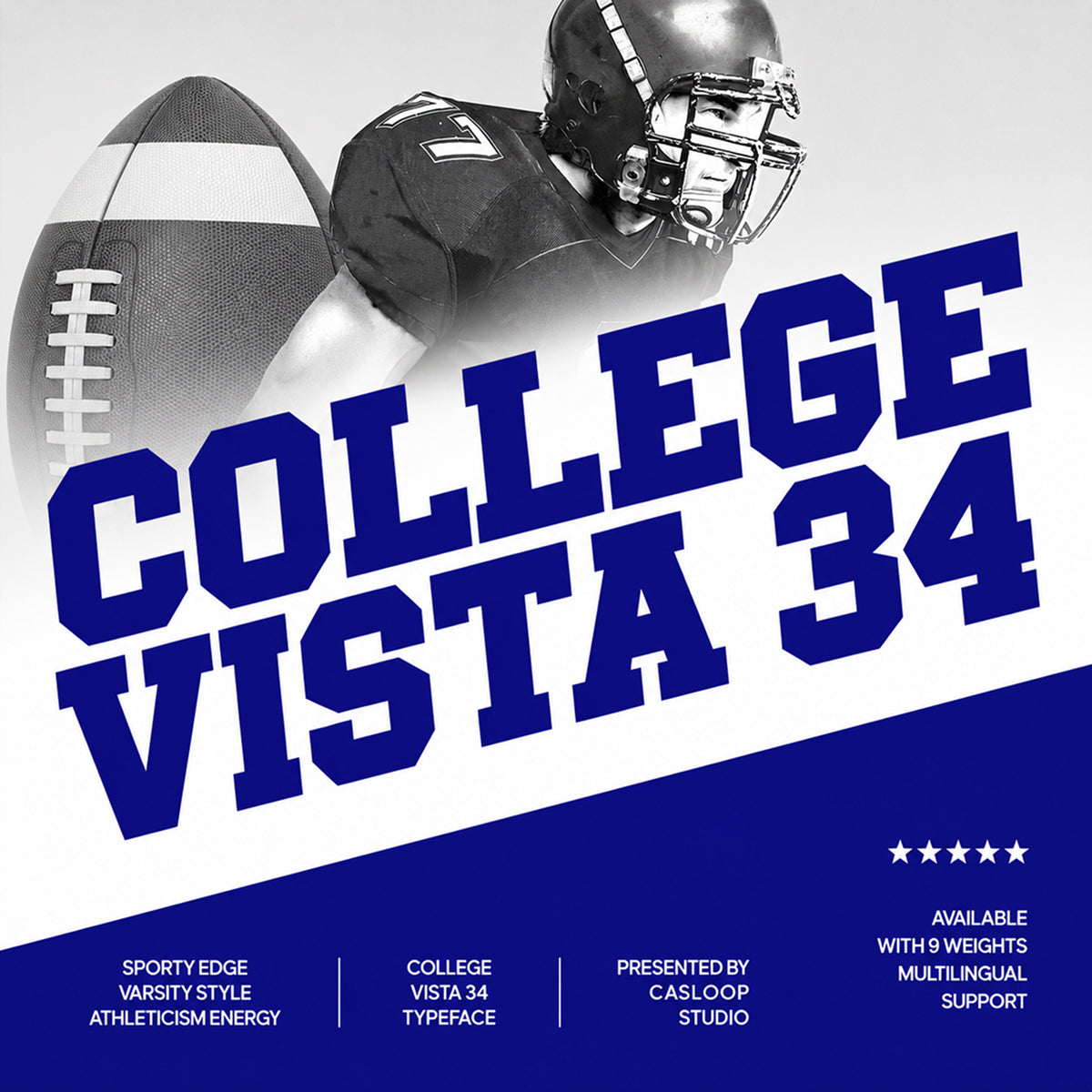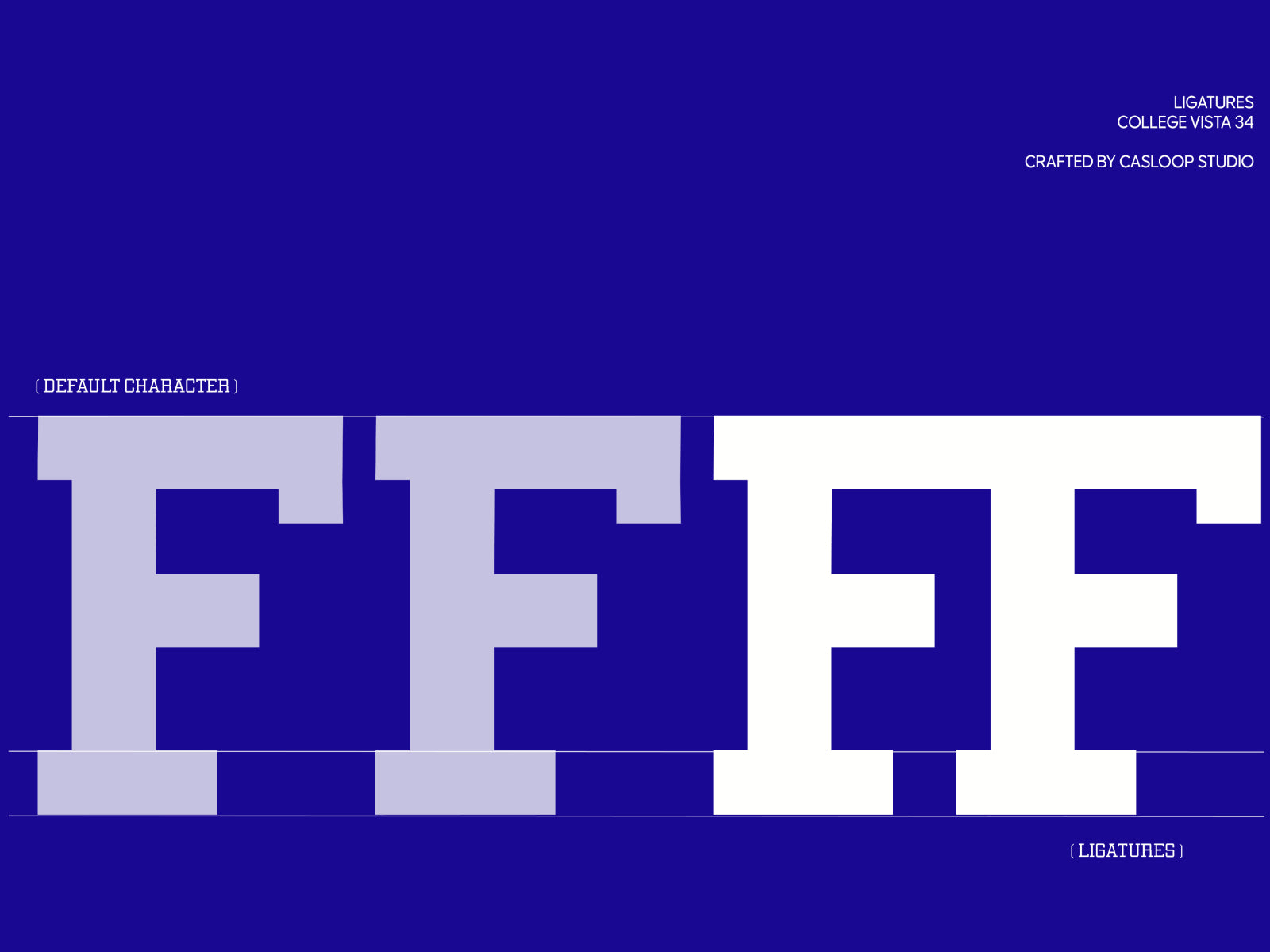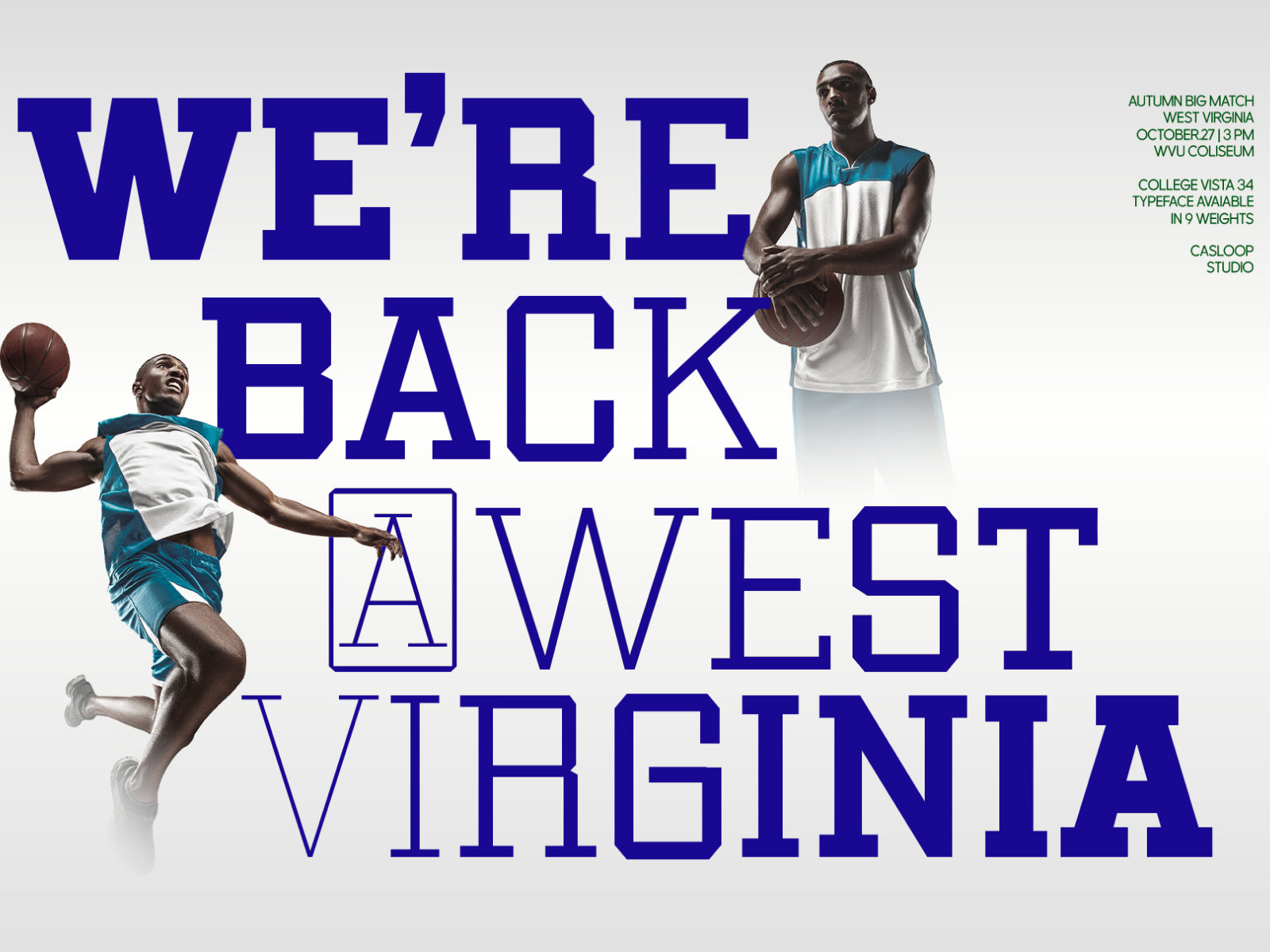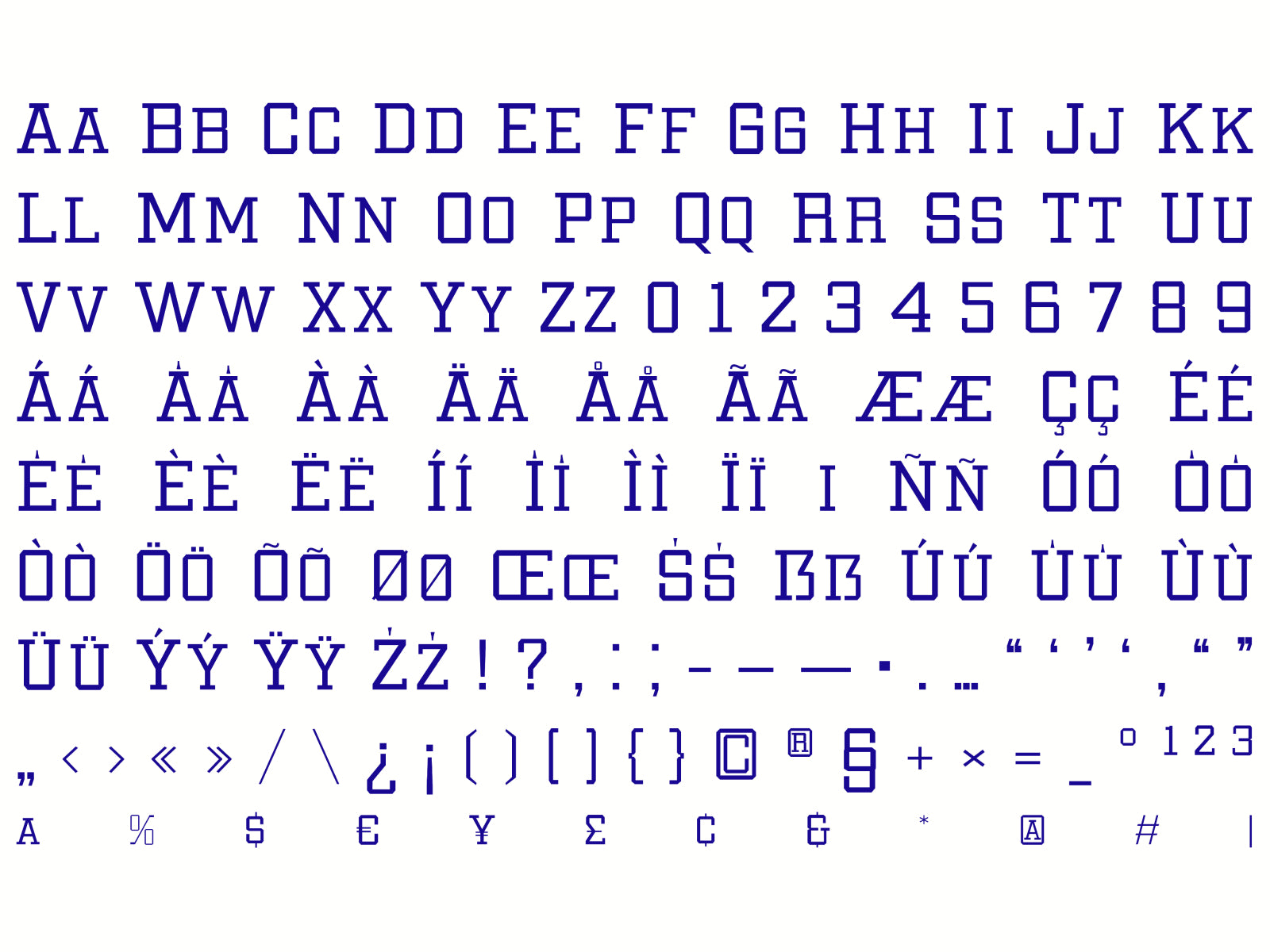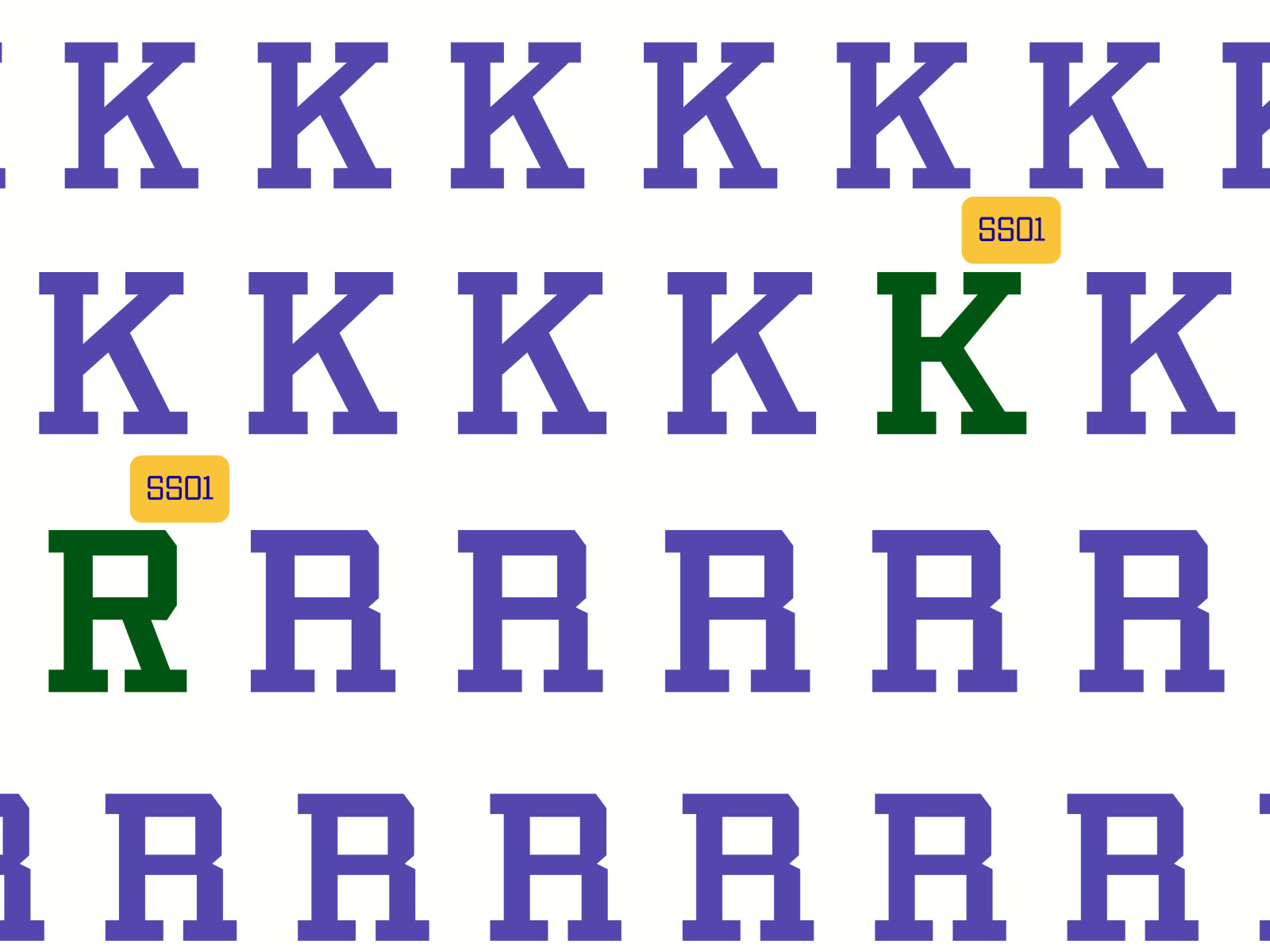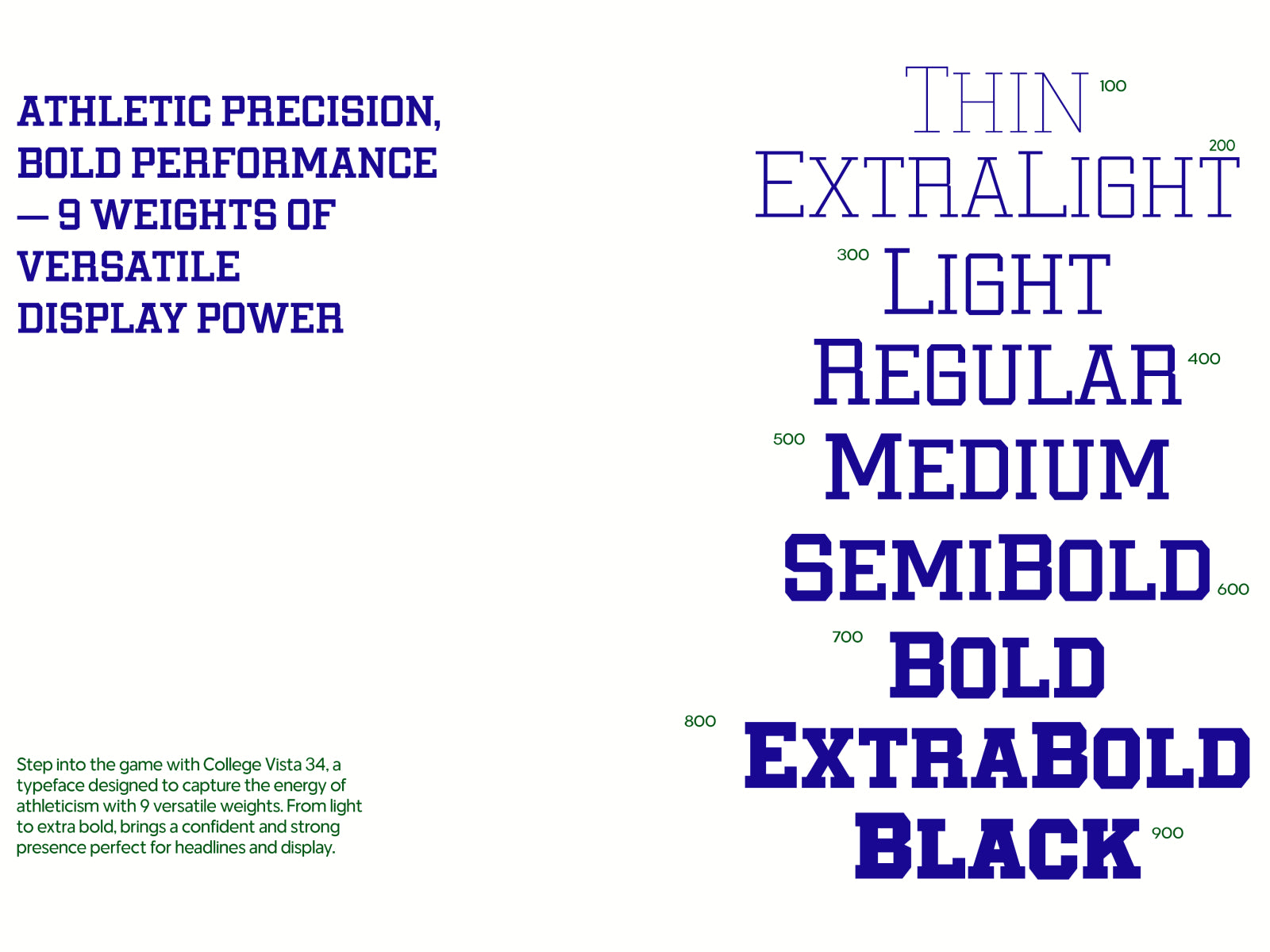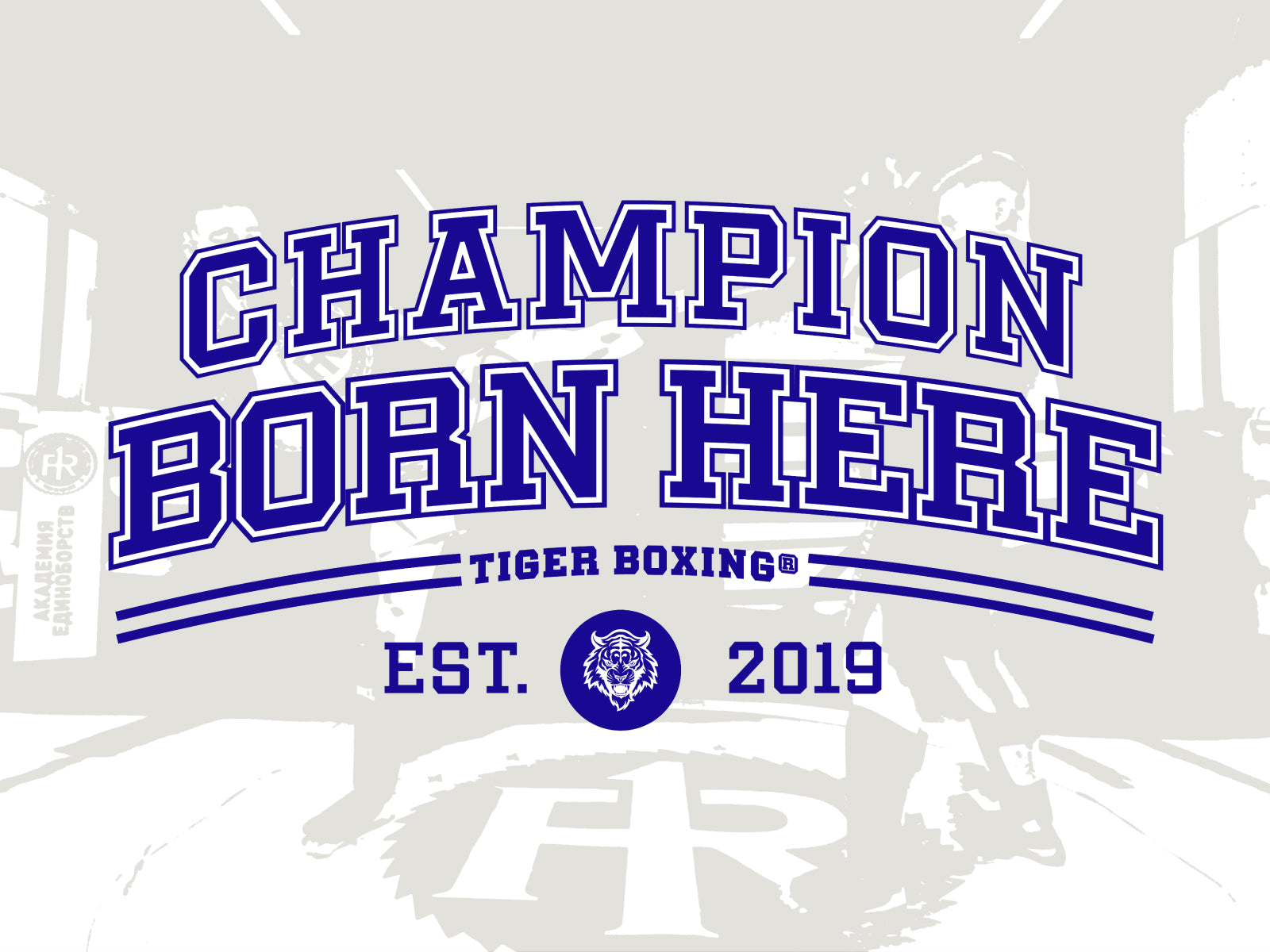
College Vista 34 - Sport Fonts
Introducing College Vista 34—a dynamic Slab Serif typeface designed to elevate your branding and visual identity. Inspired by Mid-Century aesthetics, this versatile font is a perfect blend of modern minimalism and strong, athletic spirit, making it ideal for university, sport, and automotive-themed projects.
College Vista 34 brings a contemporary edge with its bold and blocky shapes while maintaining legibility across various mediums. Its quirky yet structured form makes it stand out, whether for digital media visuals, campus posters, or athletic jerseys. Designed with the versatility to fit both packaging and motion graphics, it’s perfect for anything from construction branding to university sportswear.
This premium Slab Serif typeface comes in a full font family, from thin to black, offering dynamic range and flexibility. Its expressive, sporty design is ideal for logos, websites, text animations, and even campus posters. College Vista 34’s strong, youthful vibe lends itself to any project needing a powerful and professional presence, particularly in sports, automotive, or college settings.
College Vista 34 is a versatile Slab Serif typeface inspired by Mid-Century aesthetics, featuring bold and blocky shapes for enhanced legibility. This premium font family includes a range of weights from thin to black and supports multiple languages, making it suitable for various branding and visual identity projects in sports, automotive, and educational contexts.